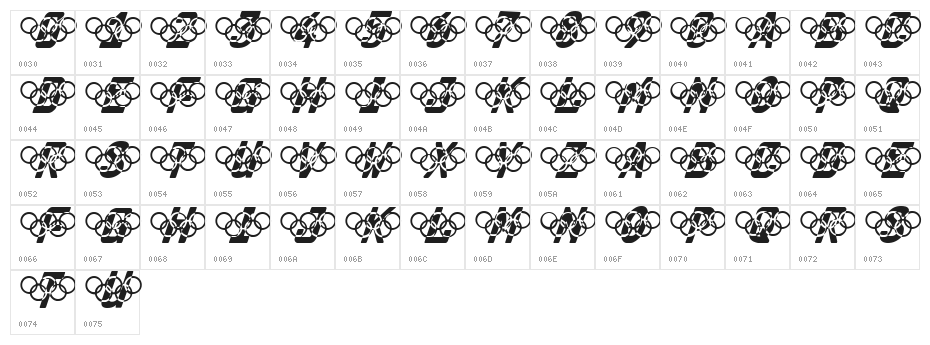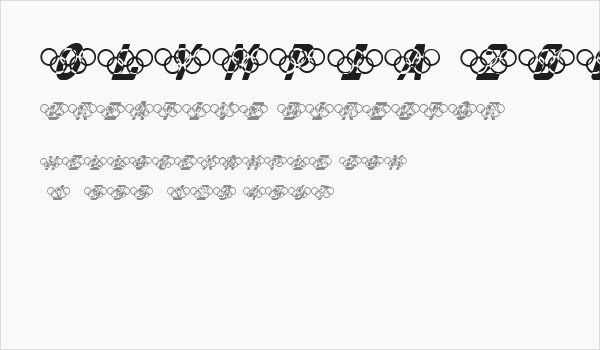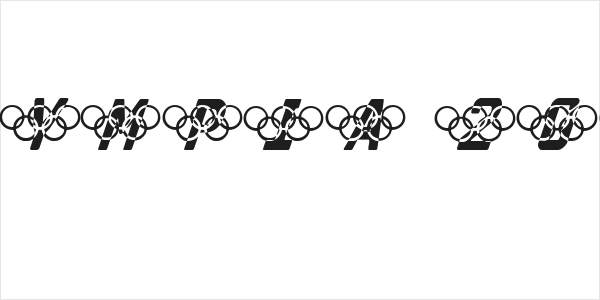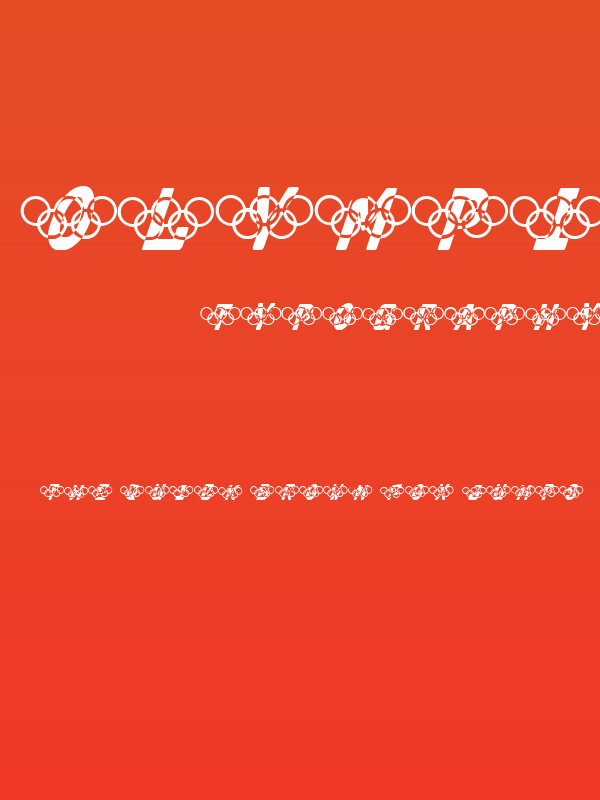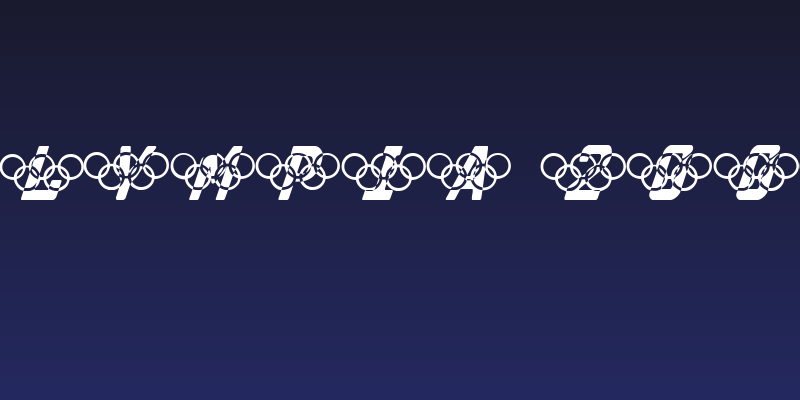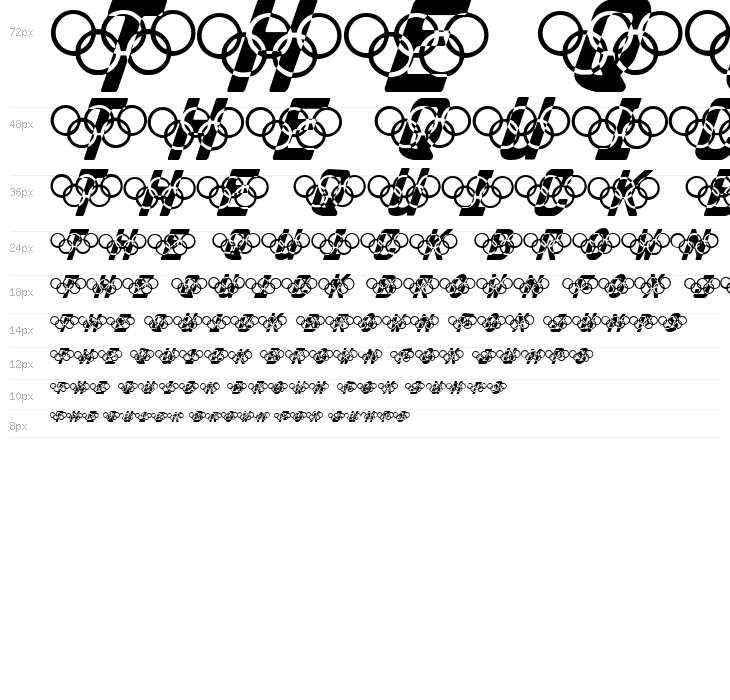
Olympia 2000 Font
Olympia 2000 Description
This design is a highly decorative and abstract pattern that intertwines geometric shapes and lines in a continuous sequence. The intricate arrangement creates a sense of movement and complexity, making it visually striking. The pattern is composed of overlapping circles and angular elements, forming a dense and ornate appearance. It is not suitable for reading text but serves as an artistic and ornamental design.
| Use Case | Artistic design, Decorative borders |
| Proposed Projects | Ideal for decorative borders, artistic projects, or as a background element in graphic design. |